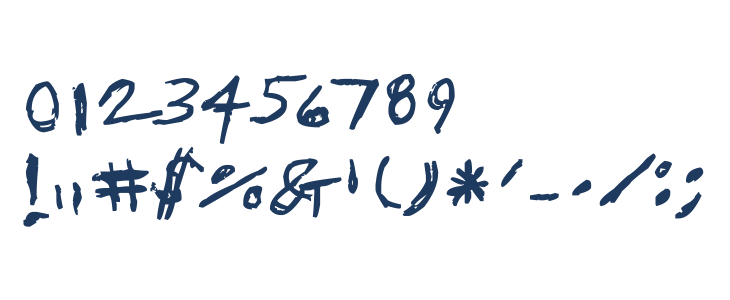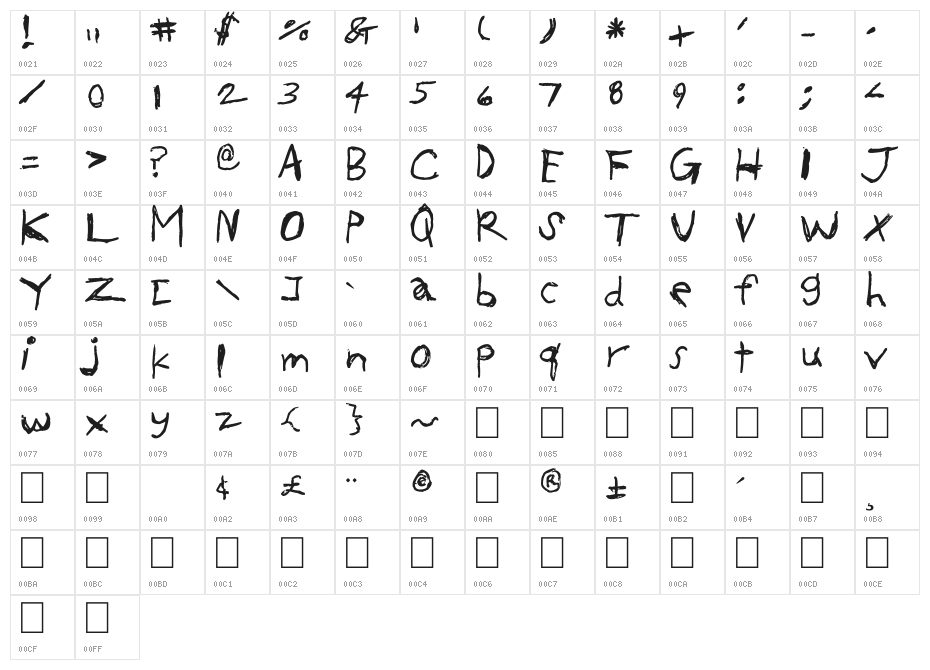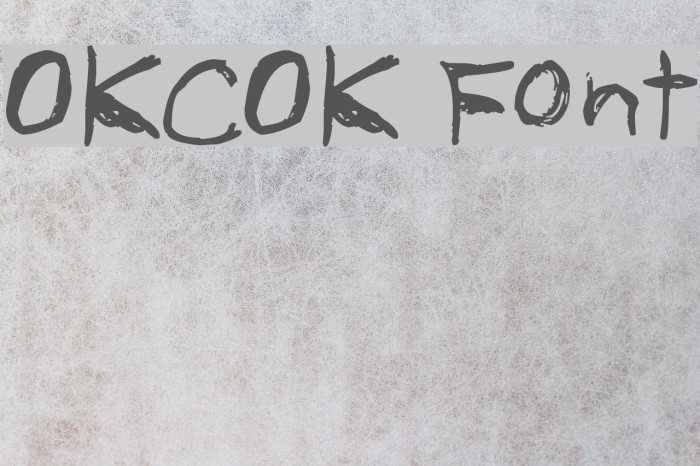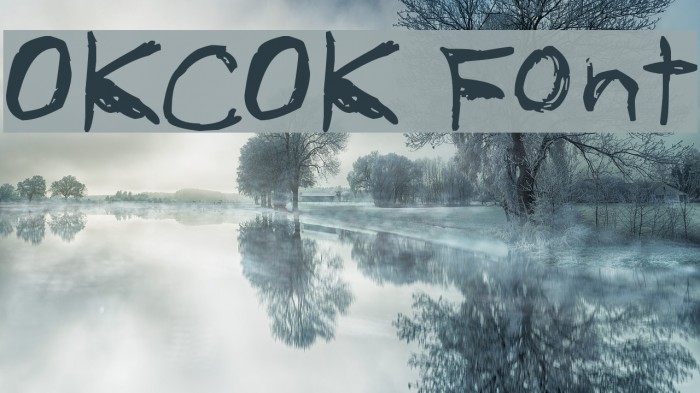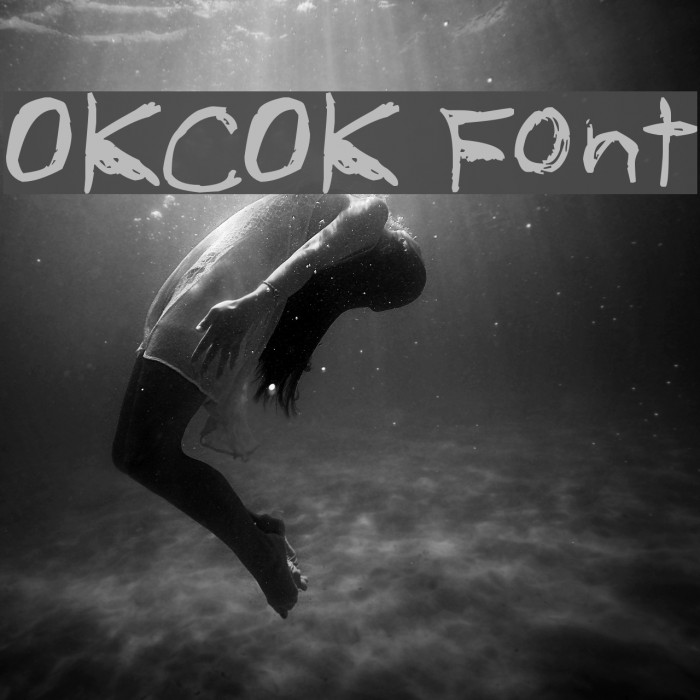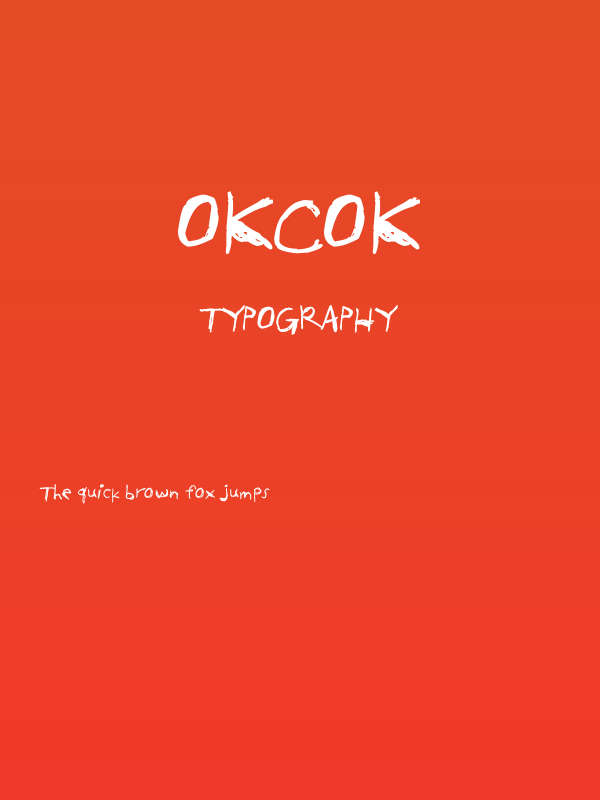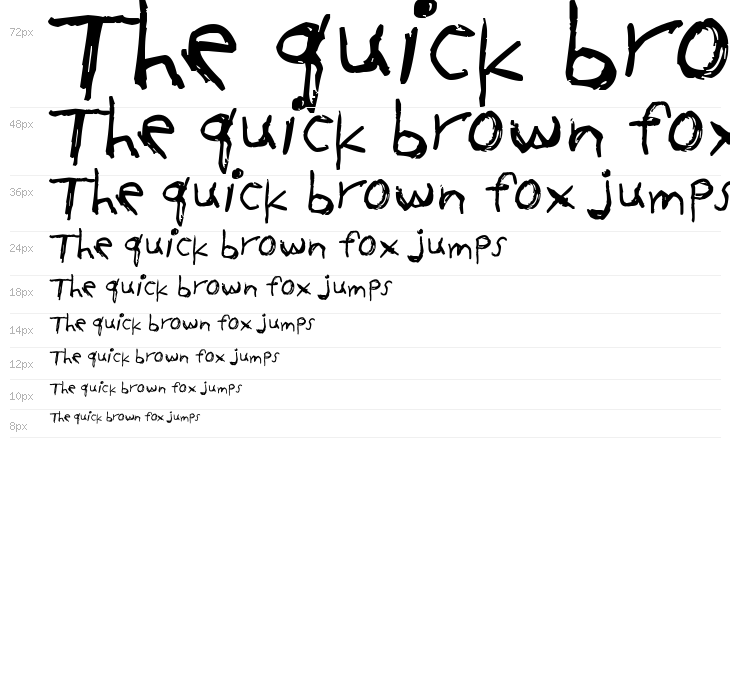
OKCOK Font
OKCOK Description
This font features a bold, expressive style with a hand-drawn appearance. The characters are uneven and irregular, giving it a raw and artistic feel. The strokes are thick and vary in width, creating a dynamic and energetic look. The uppercase and lowercase letters maintain a consistent style, with a playful and slightly chaotic arrangement. Numbers and special characters follow the same aesthetic, adding to the overall cohesive design. This font is perfect for projects that require a personal touch or a creative flair.
Proposed ProjectsIdeal for artistic projects, posters, album covers, and creative branding.